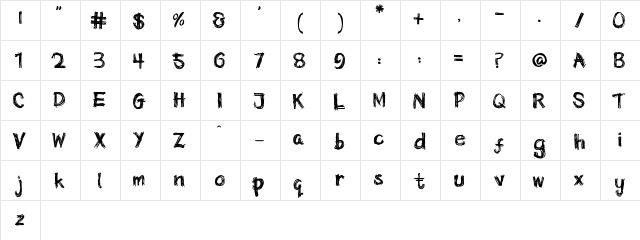
Niere Regular Font Preview
Niere Regular
Niere Regular Font Details
Design Context for Niere Typeface
Niere is a composed and adaptable typeface that performs quietly and consistently across a wide range of design contexts.